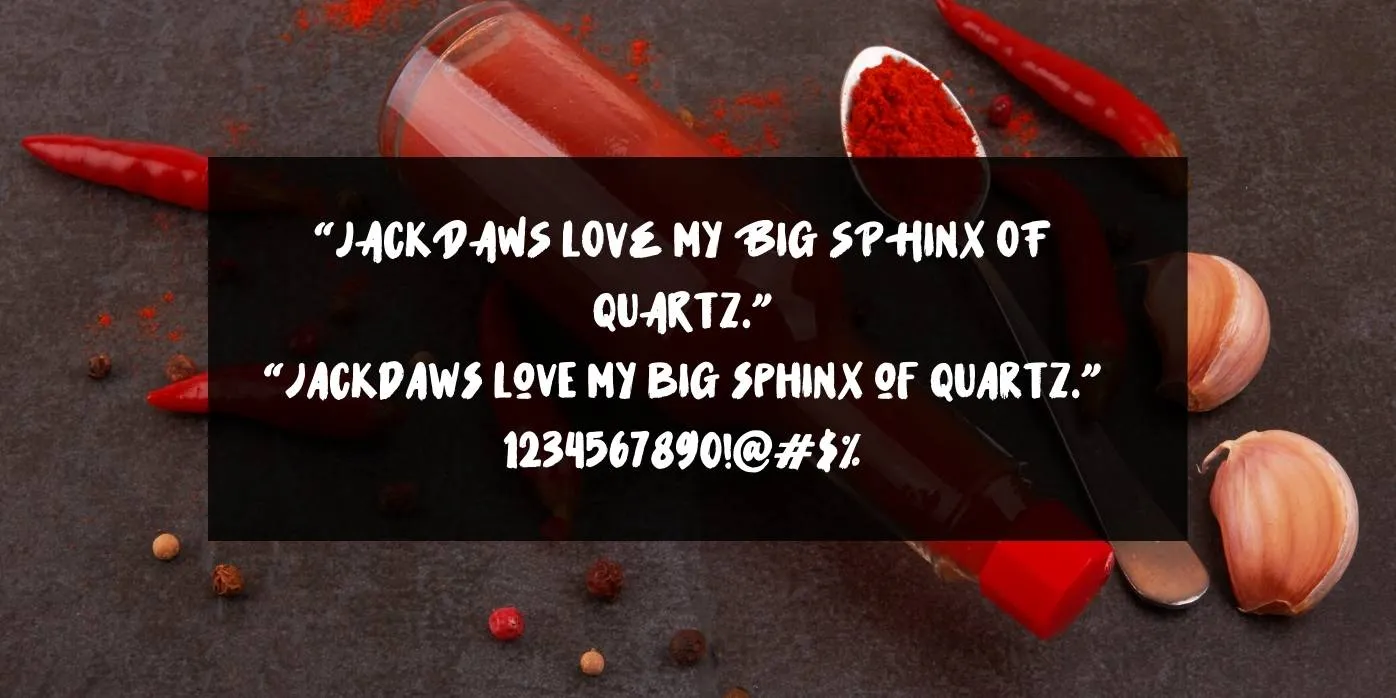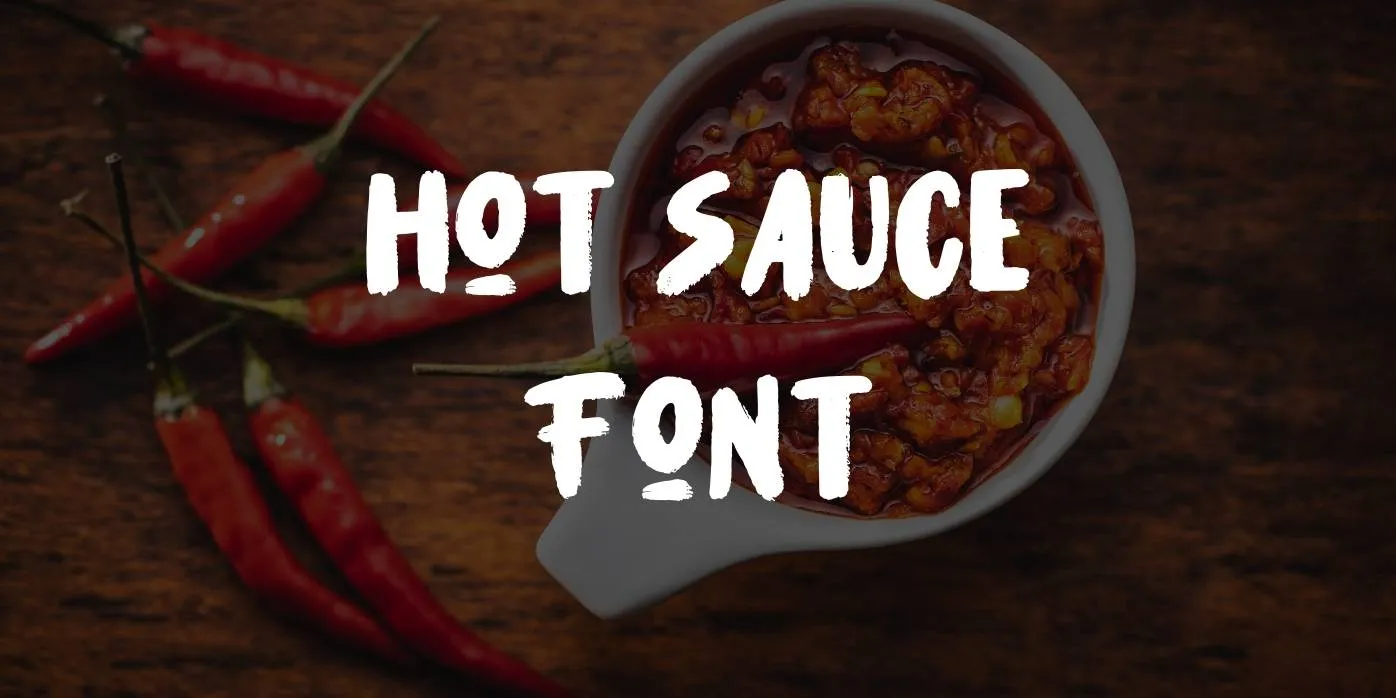
Hot Sauce Font
In this article, we discuss Hot Sauce Font that belongs to the brush typeface. This stunning typeface was developed by Dikas Studio and released in September 2011. This awesome typeface is specified for CSS and HTML. This amazing font is a great choice for those who are looking for a contemporary and stylish brush typeface.
The beautiful curves of the letters give the font a unique and classy look that is perfect for any design project. The copy-and-paste function of this typeface is effective for different designs. Another similar font which is edo sz font is perfect for different designs. This typeface has a large X height and supports different languages.